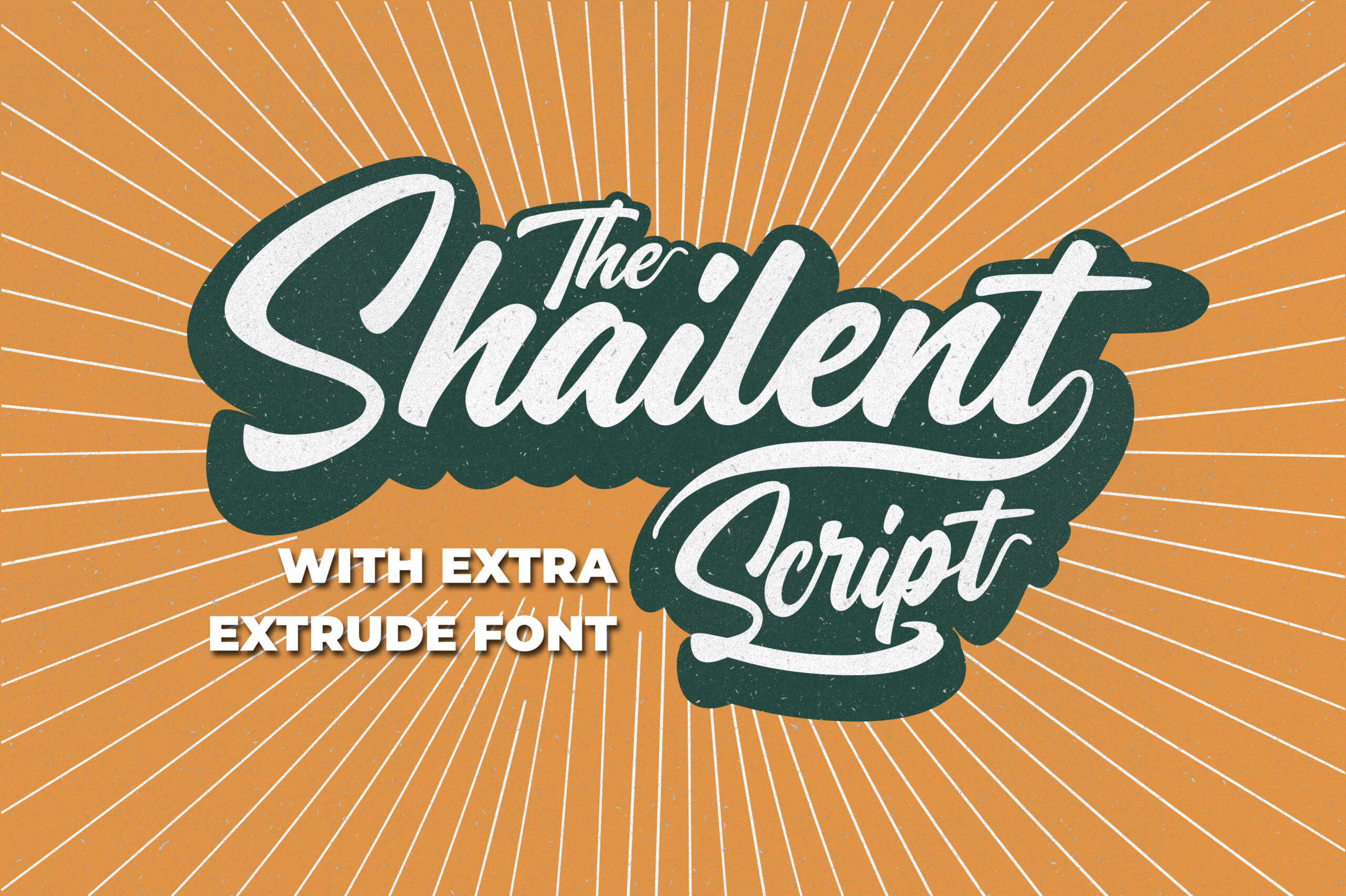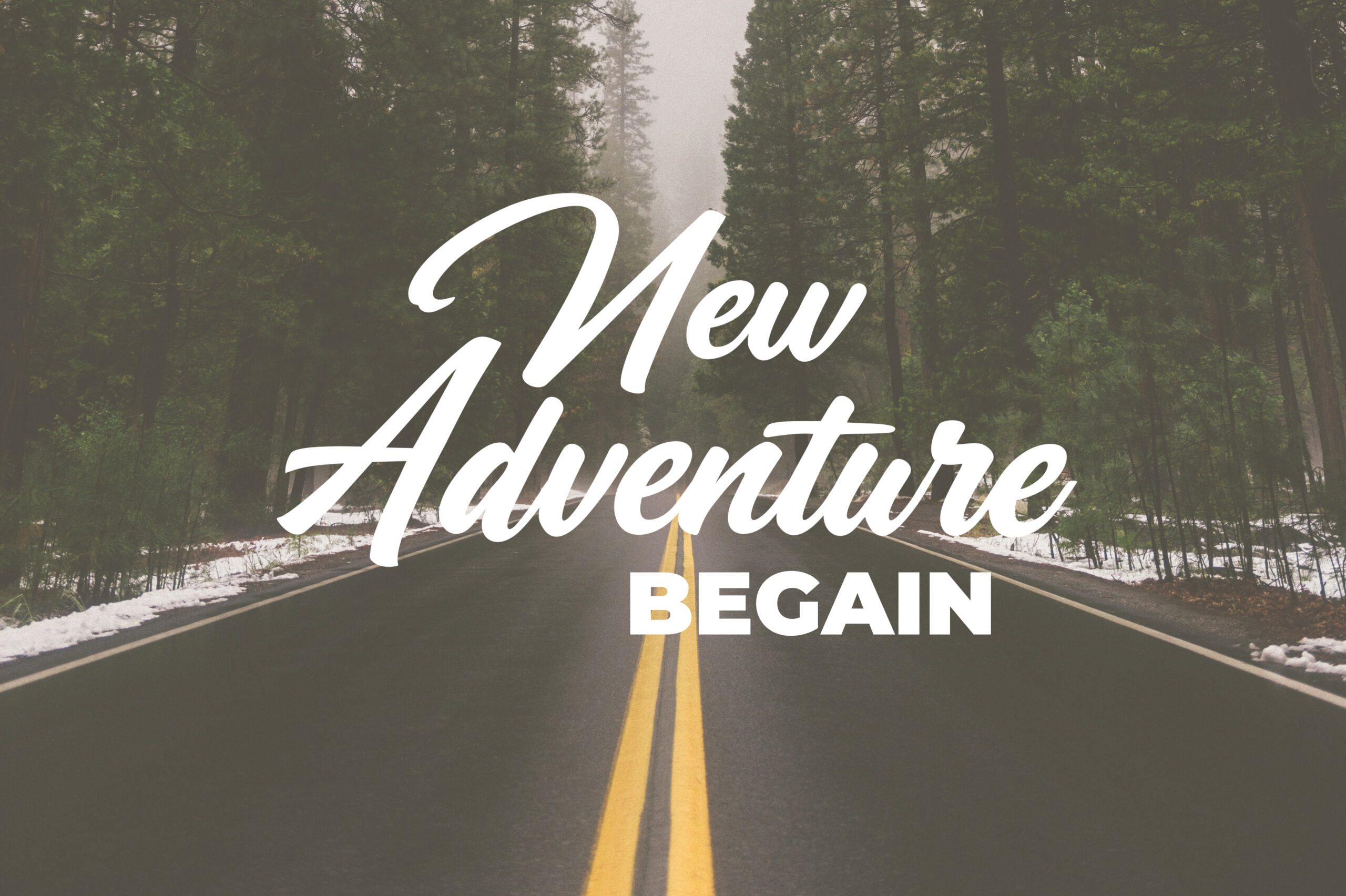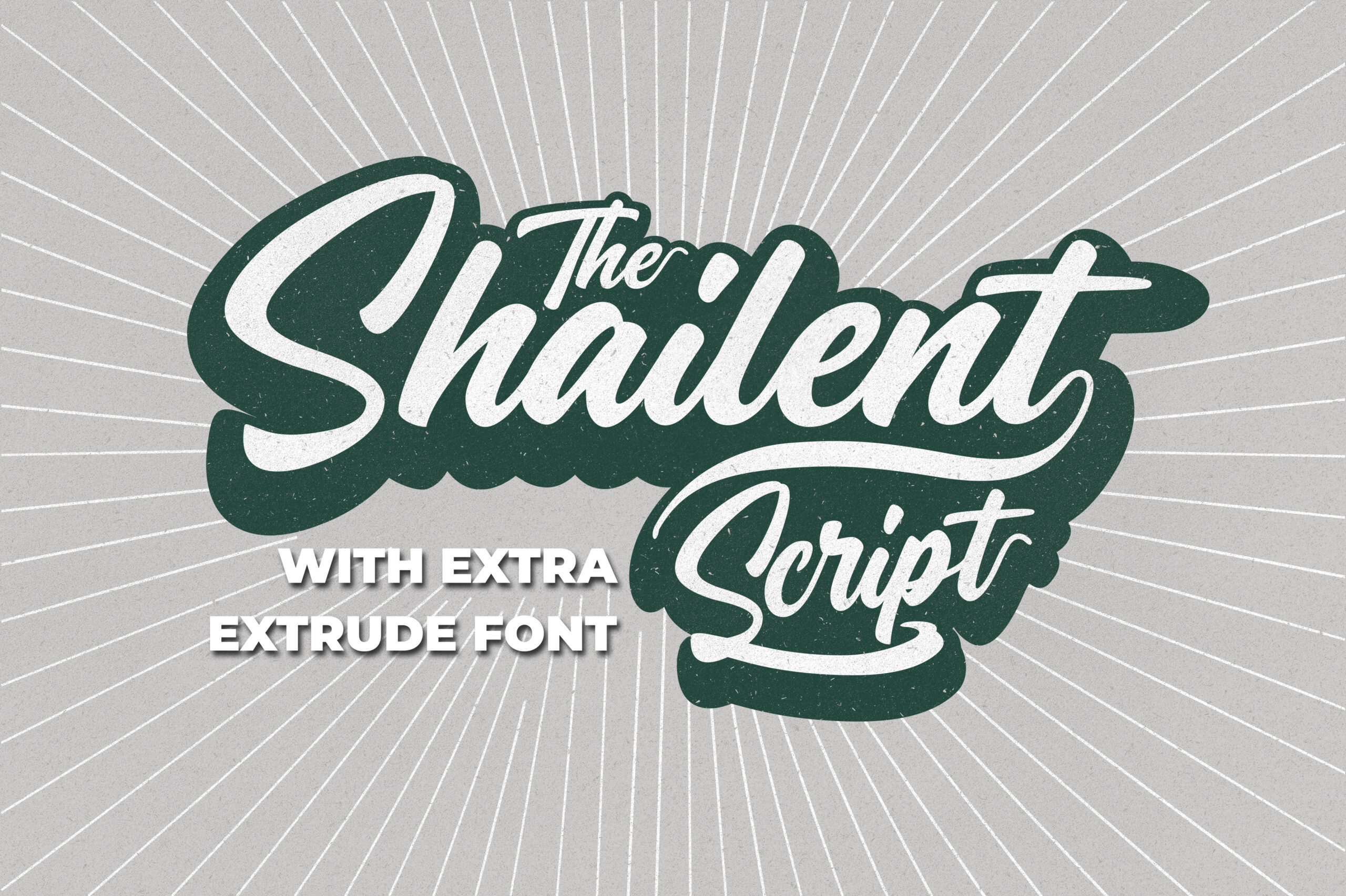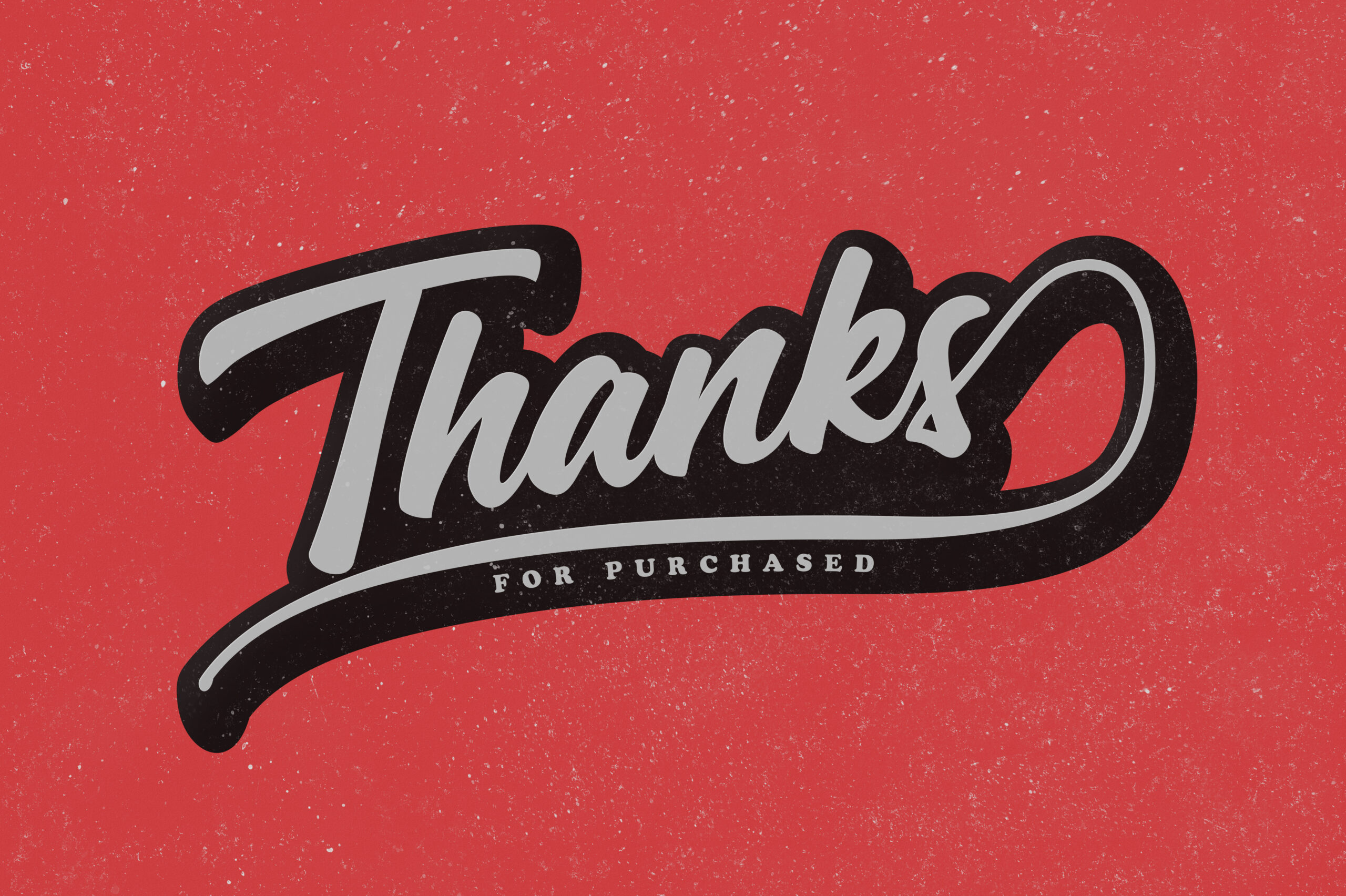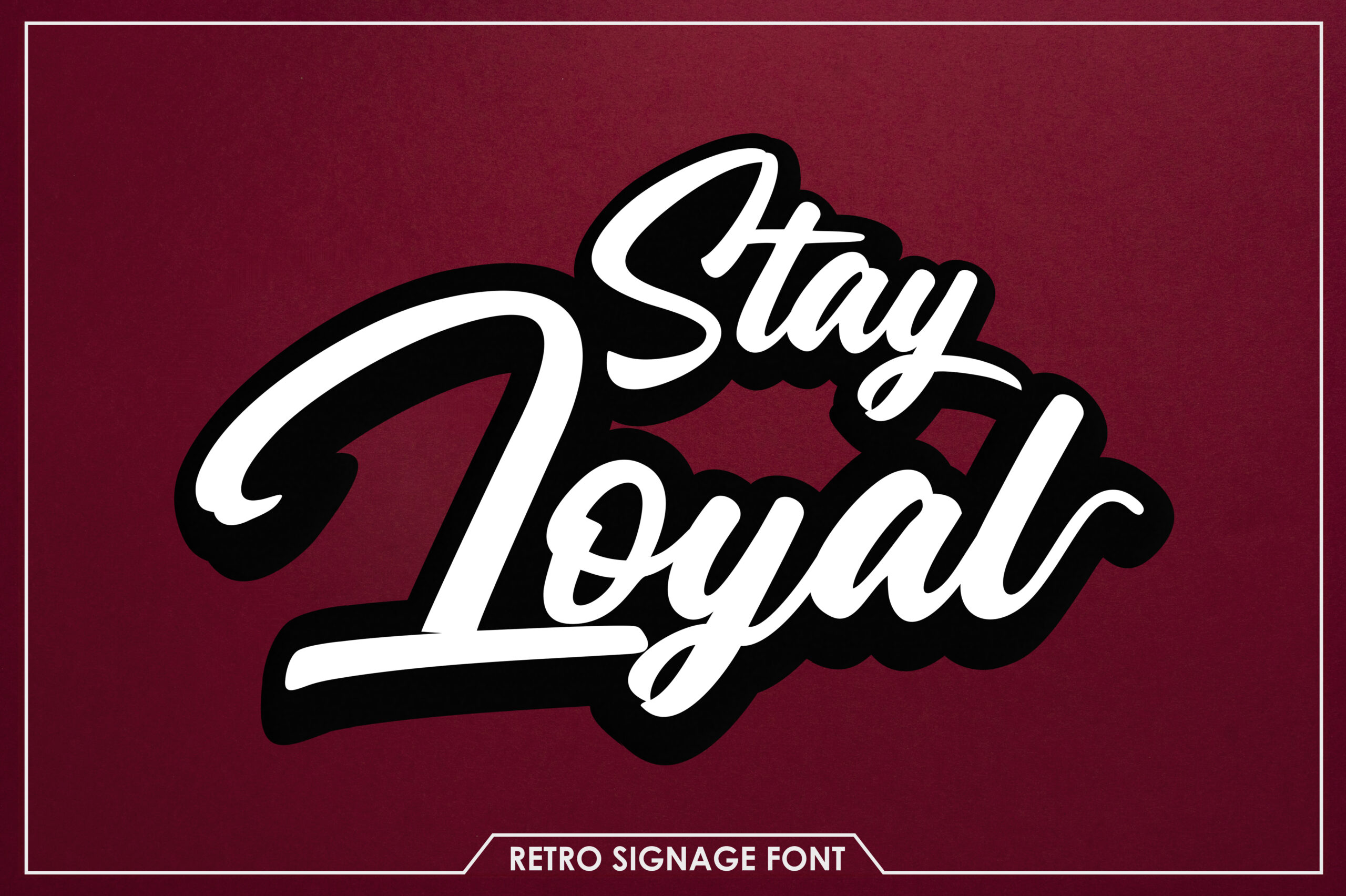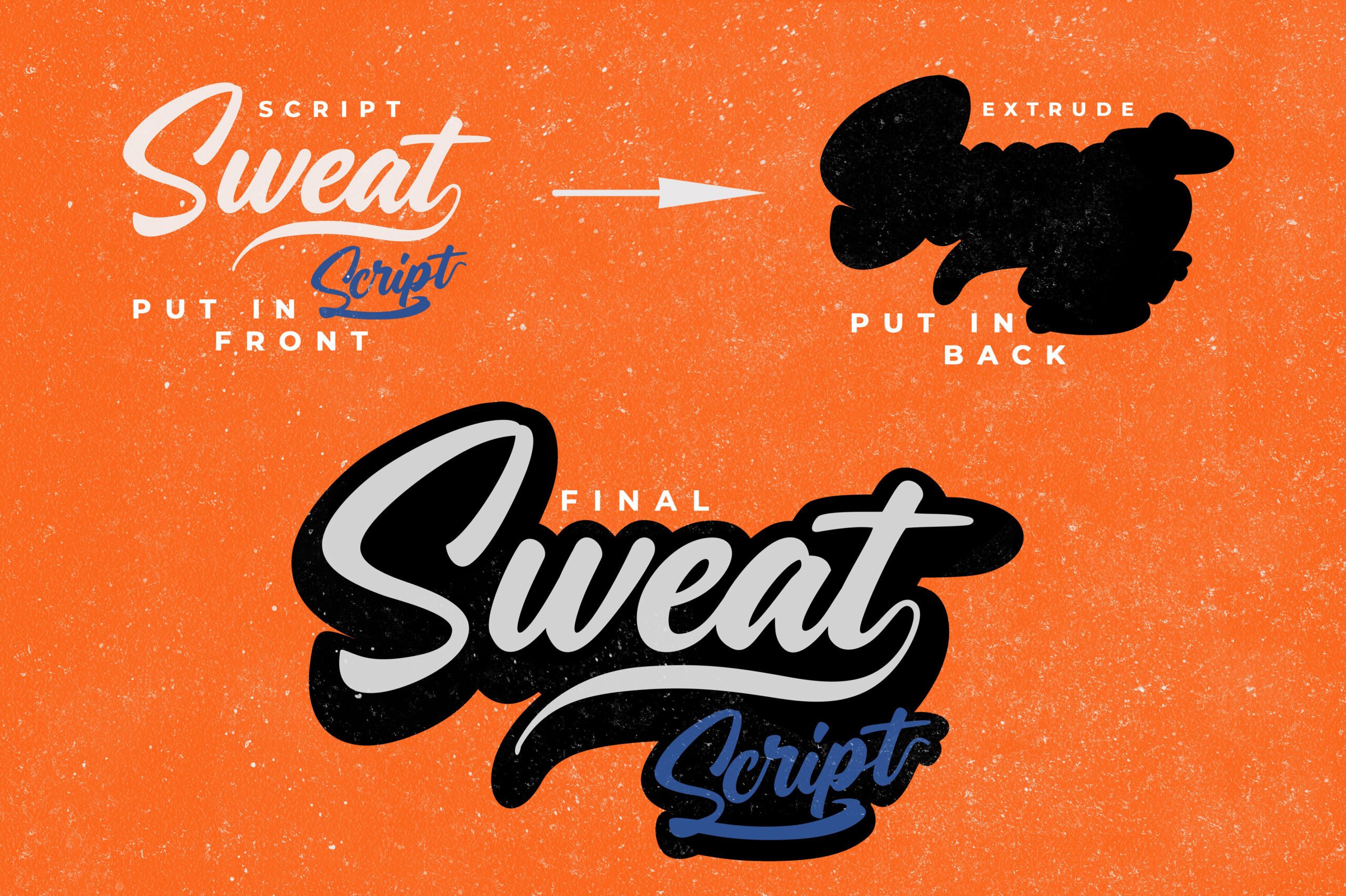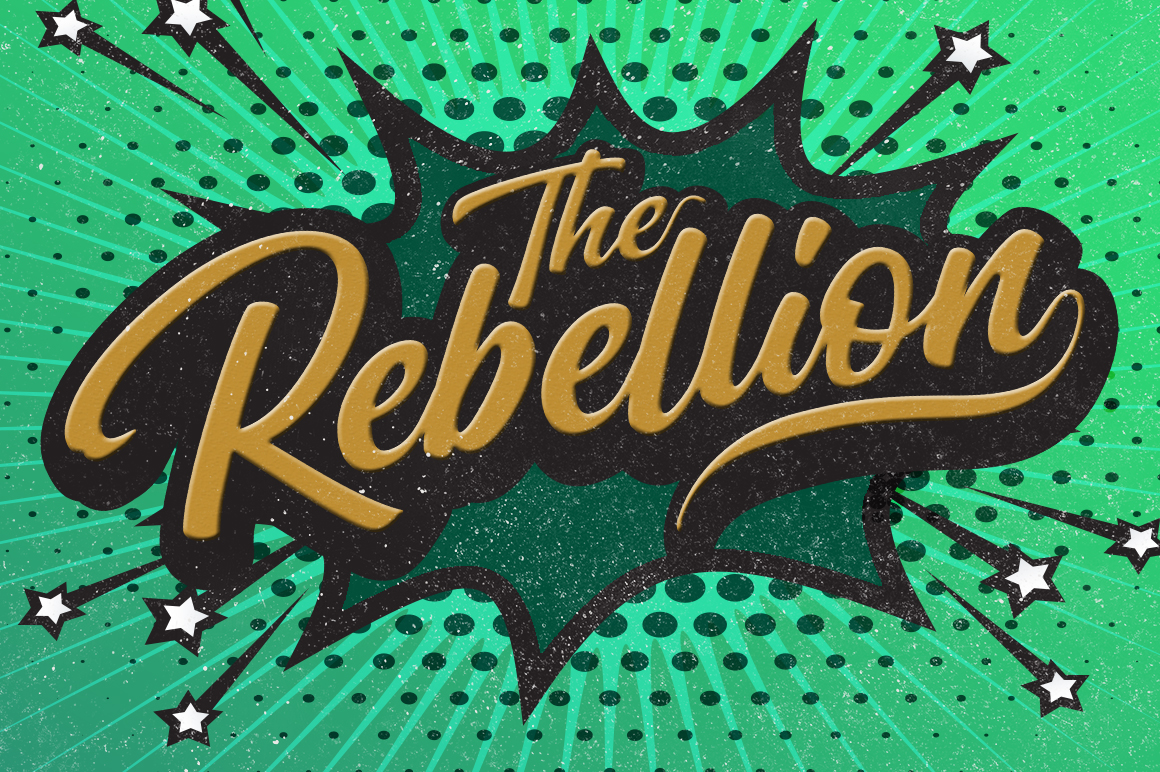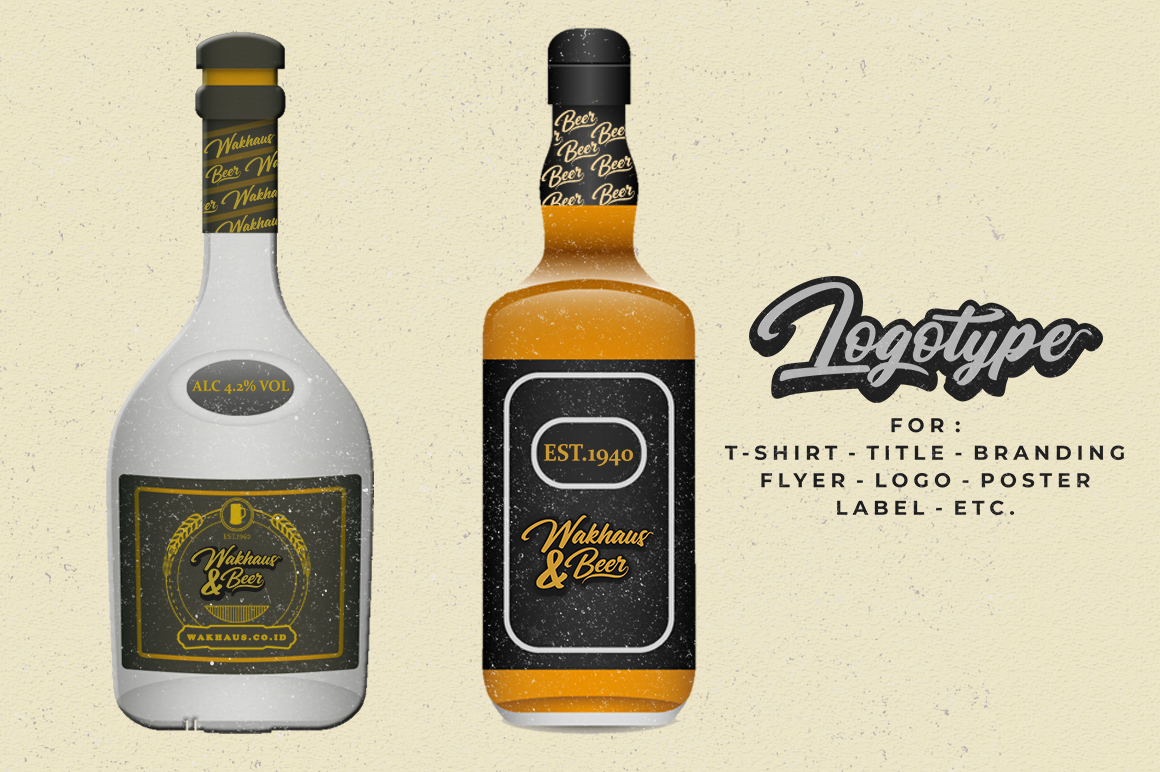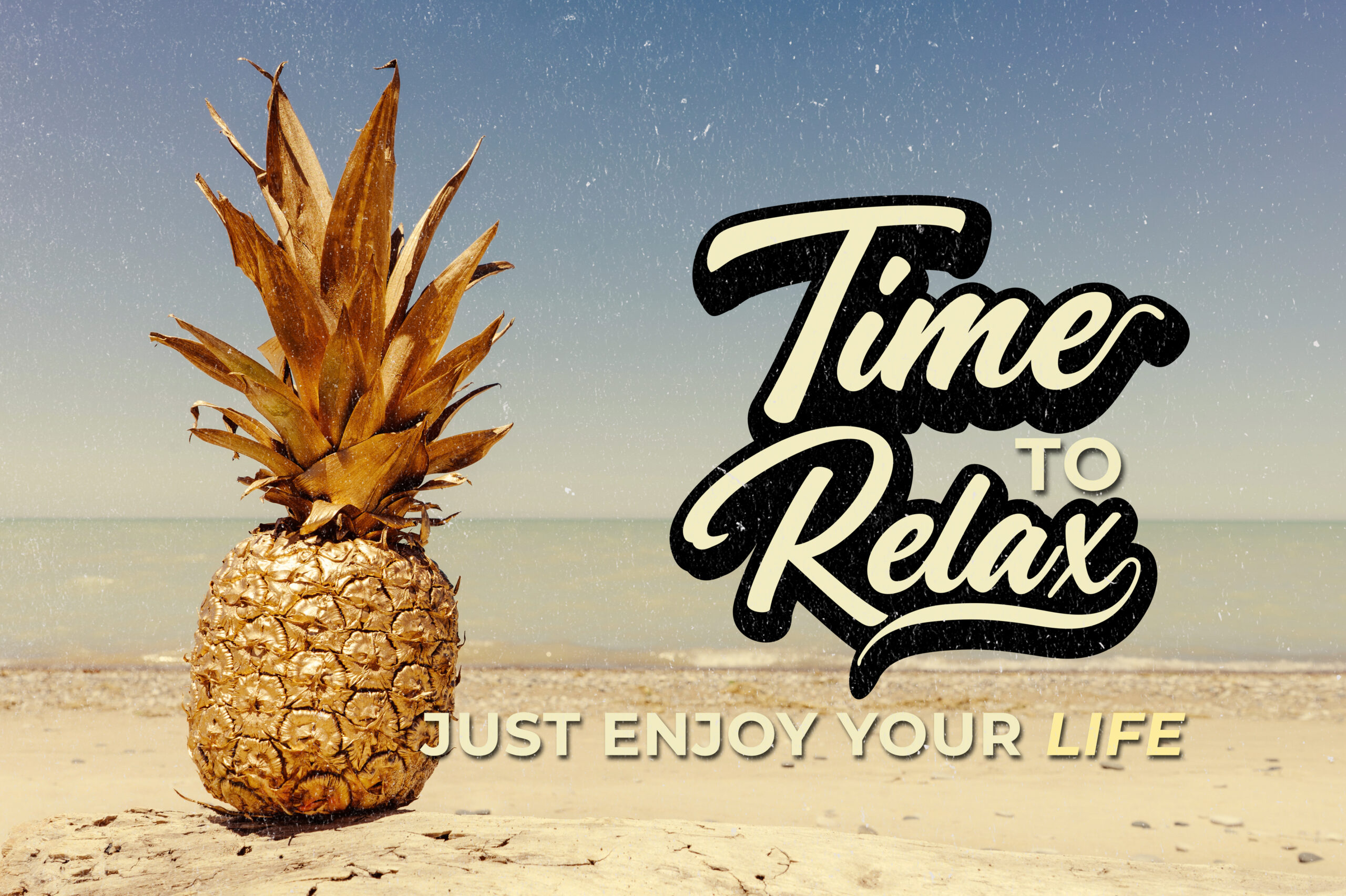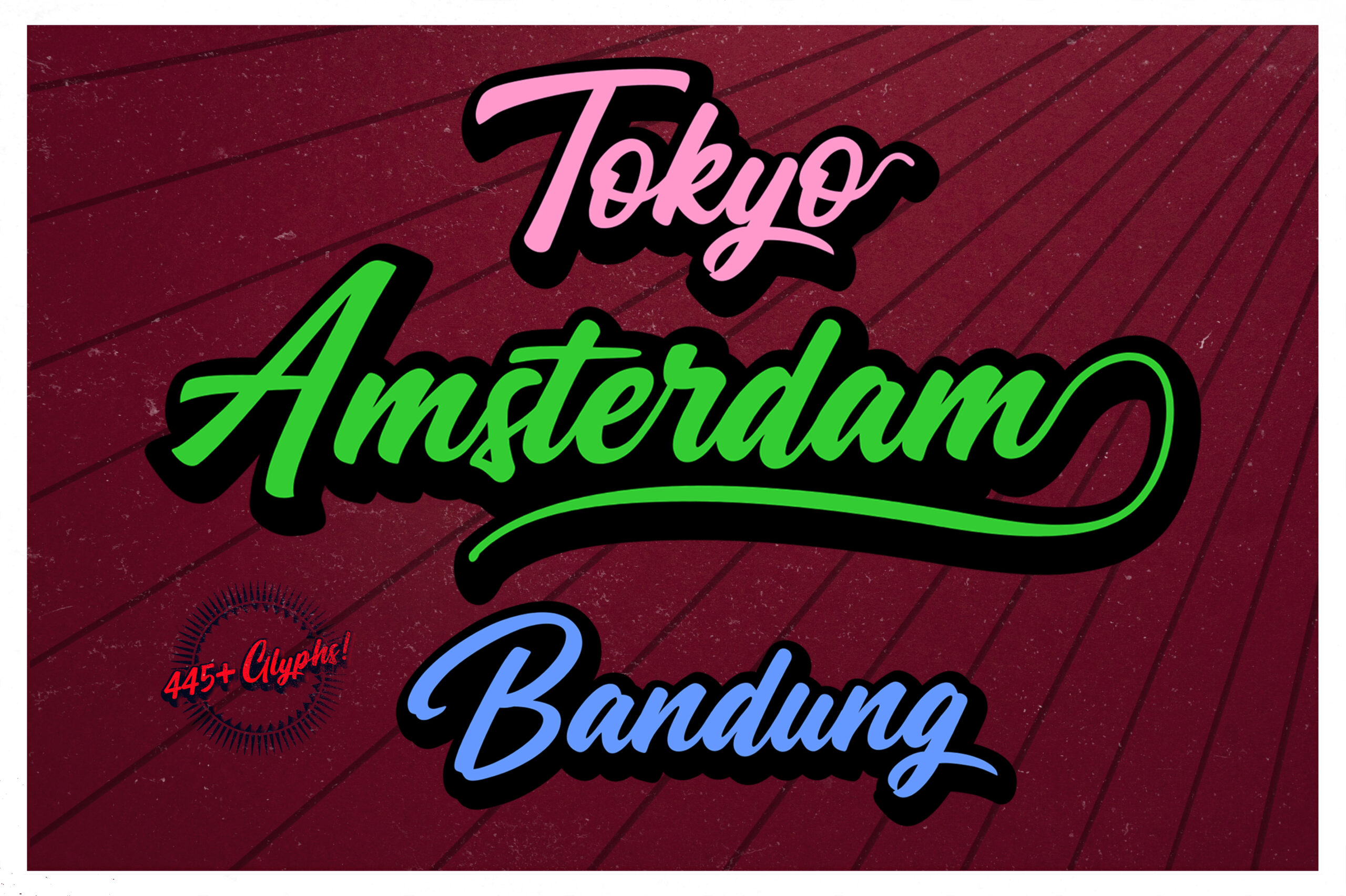
The Shailent Font
About The Shailent Font
The Shailent is a beautiful marriage of feminine and bold style; this modern script font looks phenomenal in pop art designs and can give your displays and headlines a ton of character and depth.